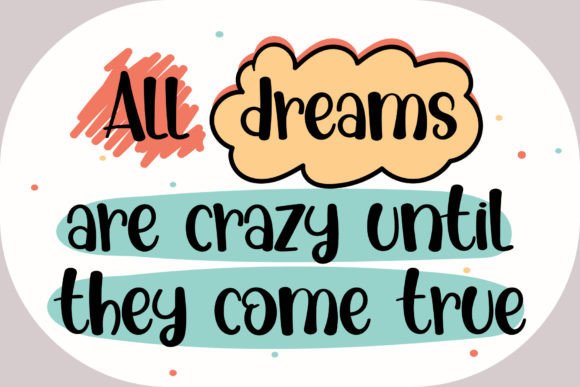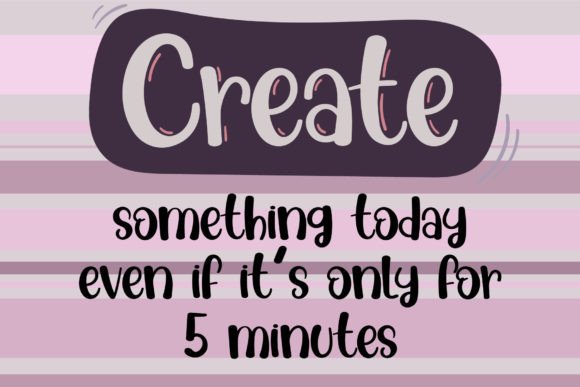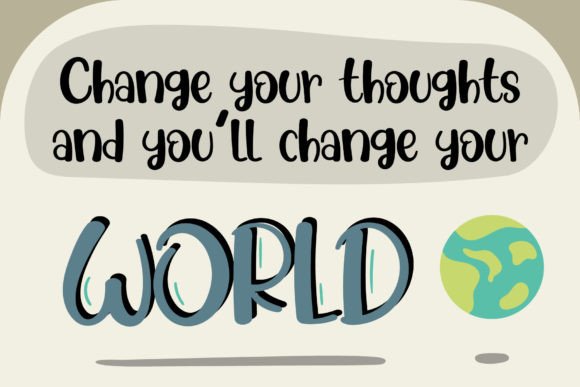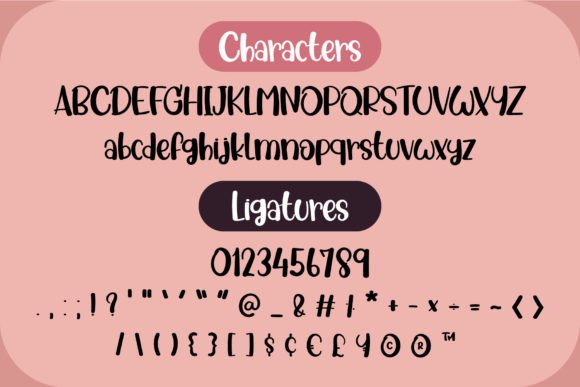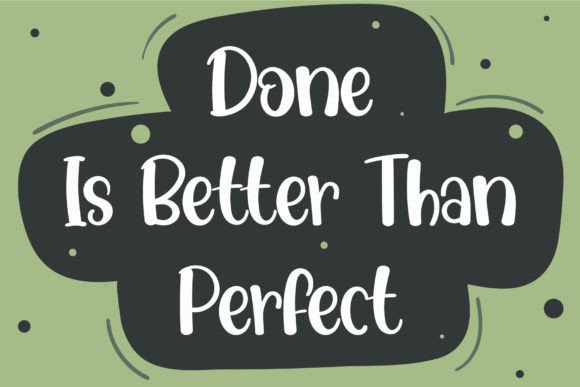
Positive Thinking Font
“Positive Thinking” is a delightful and casually handwritten font that radiates a heartwarming and inviting aura. Whether you’re on the hunt for fonts to elevate your Instagram posts or in need of calligraphy scripts for your do-it-yourself (DIY) projects, this font possesses the innate ability to metamorphose any creative idea into a genuine masterpiece.
The “Positive Thinking” font is a breath of fresh air in the world of typography. Its strokes flow effortlessly, mimicking the beauty of handwritten script. The characters carry an air of casual elegance, making them perfect for a wide range of applications.
One of the font’s standout qualities is its friendliness. Each letter seems to greet you with a warm smile, making it particularly suitable for projects where a welcoming and approachable tone is desired. If you’re crafting social media content, this font will infuse your posts with a dose of positivity that’s bound to resonate with your audience.
Moreover, “Positive Thinking” is incredibly versatile. Whether you’re designing posters, creating greeting cards, or crafting invitations, this font adapts seamlessly to your creative vision. It’s like having a versatile tool in your design arsenal, ready to bring your ideas to life.
The font’s handwritten aesthetic adds a personal touch to your projects, making them feel more authentic and relatable. It’s as if each word was carefully crafted by hand, lending a unique charm to your creations.
The “Positive Thinking” font isn’t just about style; it’s about substance too. It can convey messages of optimism and encouragement with ease. When you use this font, your words will carry an extra layer of positivity, making it perfect for motivational quotes, affirmations, and inspirational content.
Whether you’re a professional designer or someone embarking on their creative journey, “Positive Thinking” is an excellent choice. It strikes the perfect balance between cuteness and sophistication, making it suitable for a wide range of projects. So, don’t hesitate to embrace the friendly and inviting world of “Positive Thinking” – your creativity will thank you.
In conclusion, “Positive Thinking” is more than just a font; it’s a creative companion that elevates your work to new heights. With its friendly charm and versatile nature, it’s a must-have for anyone looking to turn their creative ideas into genuine works of art.